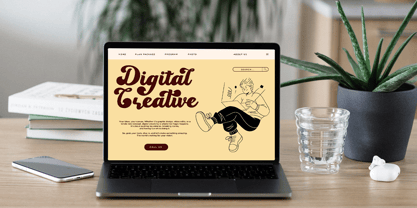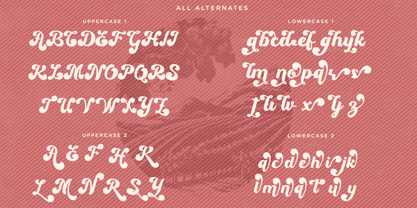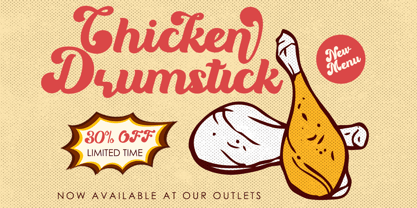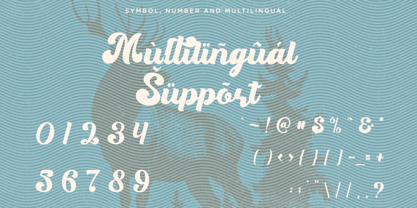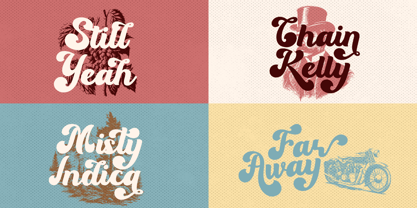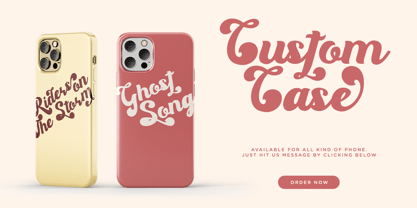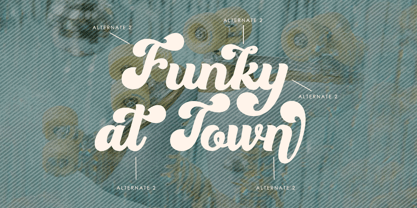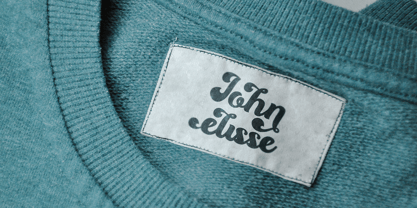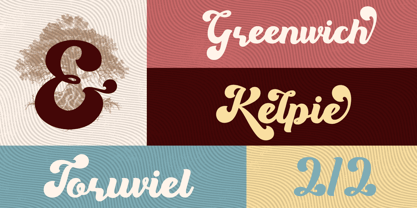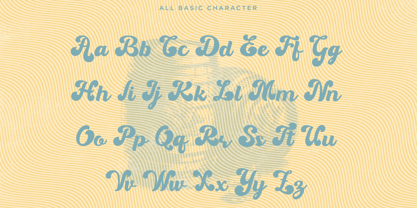
Party Fantasia
by Font Liner
The Party Fantasia Font Family was designed by Ghina Luthfiarieska and published by Font Liner. Party Fantasia contains 1 styles. More about this family
Party Fantasia, A new carefully crafted Delightful Bold on a script typefaces. It generates a lot more fun, more trendy and more vibrant. It’s Versatile, Fun, Cute and Beauty feel that you get in Party Fantasia perfectly made to be applied especially in logo, and the other various formal forms such as invitations, labels, logos, magazines, books, greeting / wedding cards, packaging, fashion, make up, stationery, novels, labels or any type of advertising purpose.